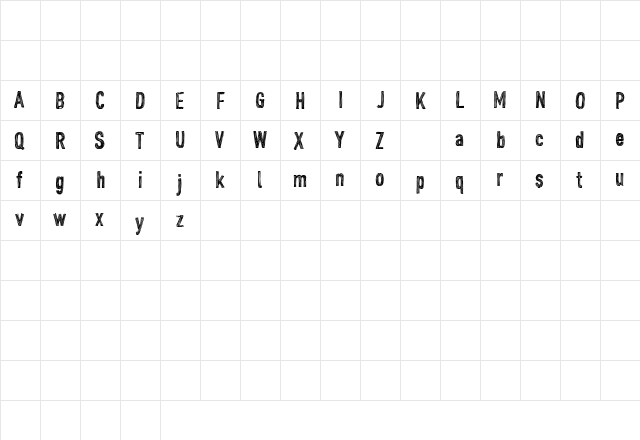
CF John Doe PERSONAL USE Regular
| Foundry | CloutierFontes |
| Designer | Steve Cloutier |
Design Context for CF John Doe PERSONAL USE Typeface
CF John Doe PERSONAL USE is a composed and adaptable typeface that performs quietly and consistently across a wide range of design contexts.